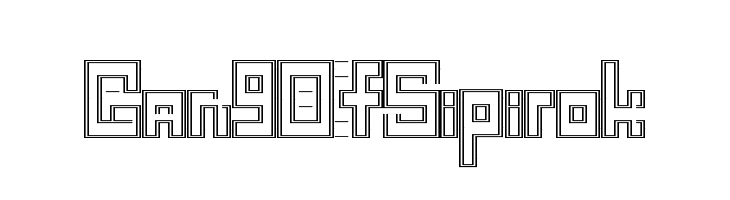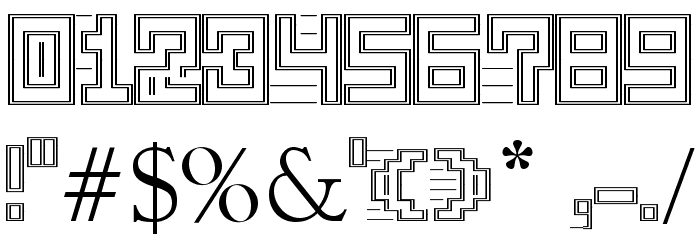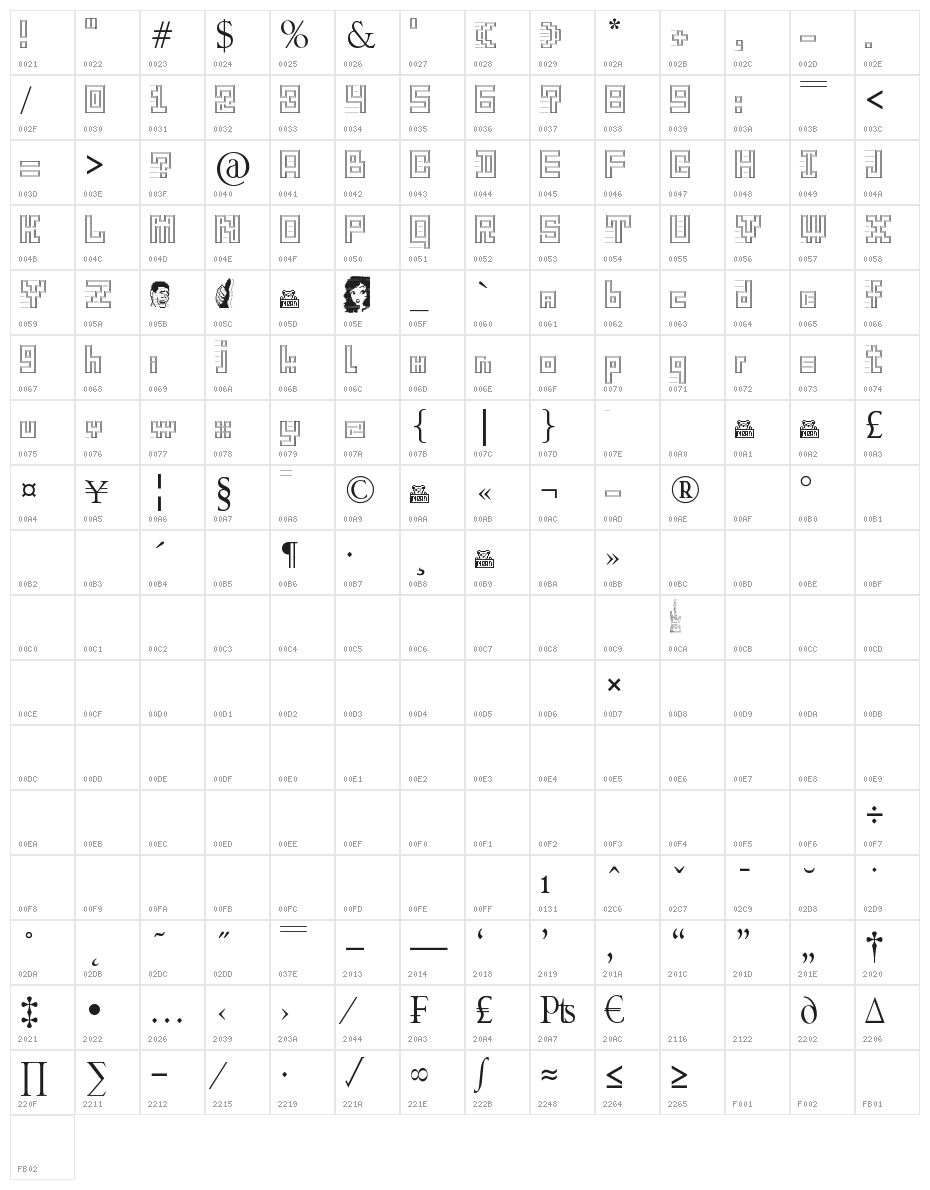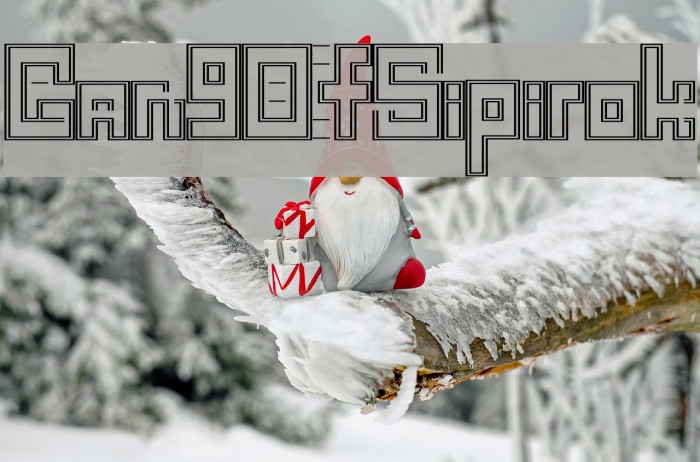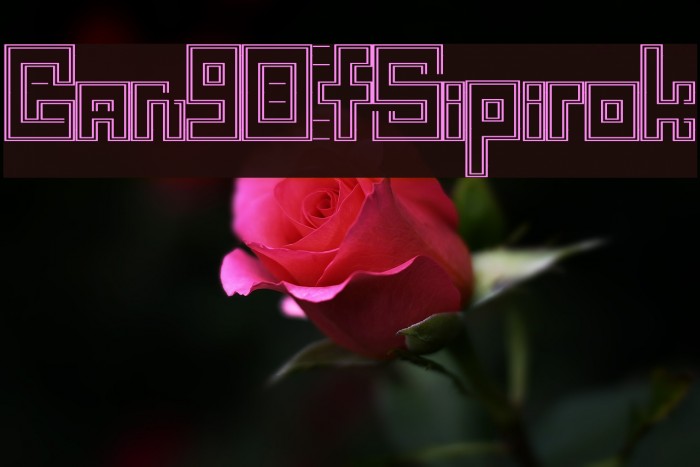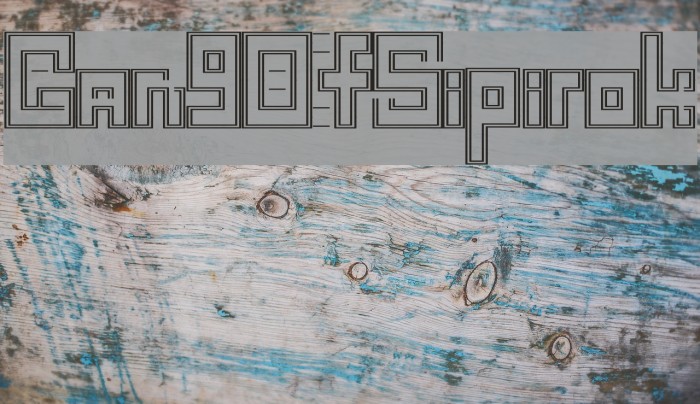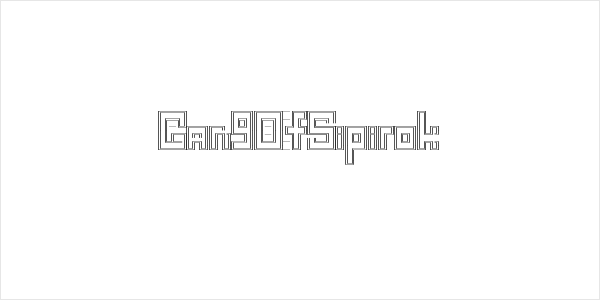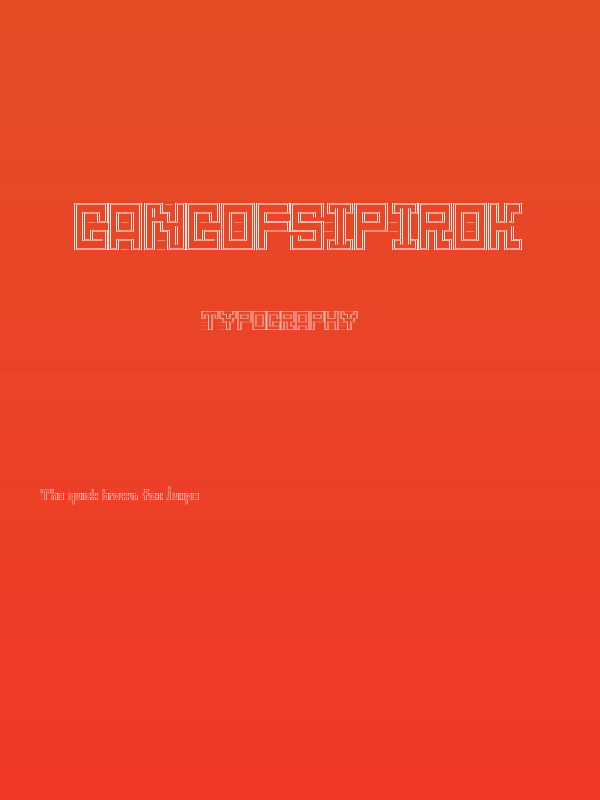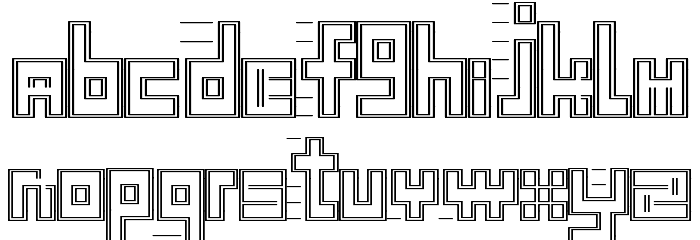
GangOfSipirok Font
GangOfSipirok Description
This font features a unique, geometric design with a three-dimensional effect created by multiple overlapping lines. Each character is constructed with a series of parallel lines that form a maze-like pattern, giving it a futuristic and digital appearance. The uppercase and lowercase letters maintain a consistent style, with sharp angles and a blocky structure. Numbers and special characters follow the same intricate design, ensuring uniformity across the font. The overall aesthetic is bold and eye-catching, making it suitable for projects that require a modern and technological feel.
| Overall Style | Futuristic, Digital |
| Proposed Projects | Ideal for tech-related branding, video game titles, futuristic posters, and digital art projects. |